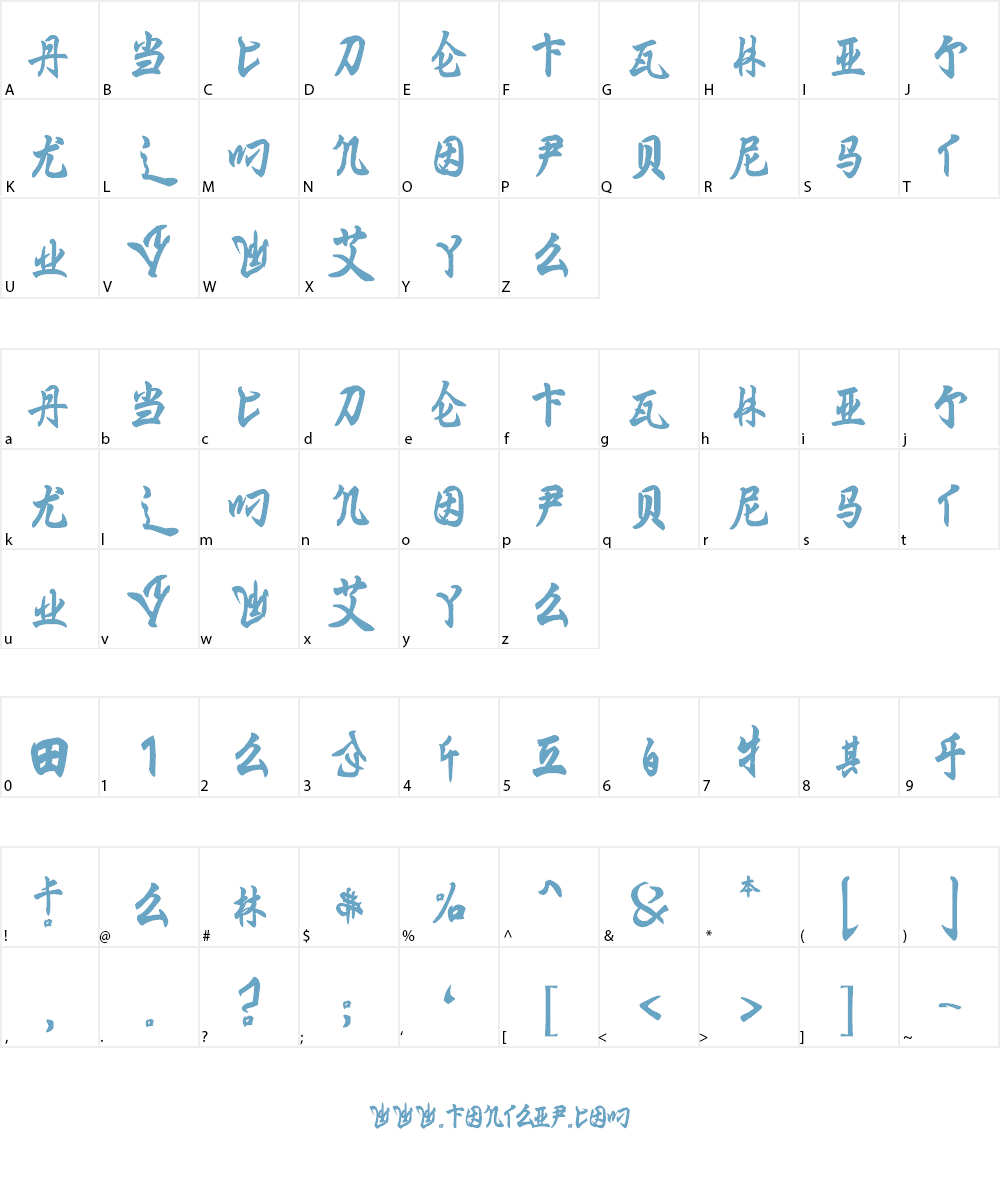
I must confess that the Ming Imperial design, I worked with actual Chinese characters and glyphs, namely the imminent ambiguity that can occur when you write something with the imperial Ming Font, and you show a Latin text that appears in Chinese, but still I do not know for sure at what level might mean something in Chinese "by accident"
I would say 75% min imperial contains Chinese characters or glyphs.
Now I must be clear that if you want to get a tattoo with the Font, I can not make me responsible for what you get tattoo to mean something more, this warning is for tattoo artists and customers.
I had not thought so since I received an email with this question. So anyway, I apologize.
Why is not the same one used in web, printing on fabric or paper ... that tattoo anything on the skin.
Since a tattoo is forever, and we must be very careful.
So if you think anyway make a tattoo with the Imperial Ming font, ask someone to speak and write in Chinese to avoid ambiguity.
I have that Chinese culture is very vast and very interesting.